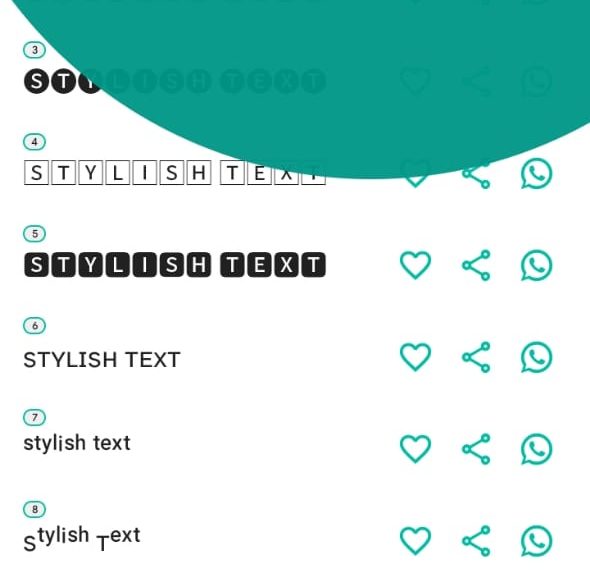
Best Best Font Style App Idea In 2022, To start diving into the world of google fonts you can read this article for a selection of the best ones. The app offers more than 100 font styles, including cursive, gothic, bold, italic, upside down, bubble, etc.
Stylish text by rural geeks. A sans serif typeface with 48 styles, available from adobe fonts for sync and web use. This beautifully elegant and minimal font is completely free for you to use with your personal and commercial projects. Stylish text by rural geeks is one of the best and most popular apps in the play store for fancy fonts.
Cool fonts can be used on any app at any time on the iphone. This app is like a word art generator, letter generator, and font generator to make fancy messages, text symbols, and attractive writing. Get or download the best cool symbols and text ππ ππ₯π€ style of old, english, japanese, chinese, arabic, bookman old, goudy old, vegan, amharic, wedding, certificate, signature font for free with easy copy and paste options. The application converts your normal texts to the stylish texts by ascii characters in various beautifully patterns. Best Free Fonts for Mobile App Designs Best free fonts, Mobile app.
Stylish text by rural geeks. Specifically designed for the web and mobile, it uses upright pressure, open shapes, and a neutral but friendly appearance to make it easy to read. The application converts your normal texts to the stylish texts by ascii characters in various beautifully patterns. Cool fonts can be used on any app at any time on the iphone. Top 10 Best Typing Software for Windows 2020 Techniblogic.
It includes 12 different styles of fonts featuring more than 2700 glyphs. Here are nine of the best font organizer tools: It has two sister font families, alternates and subrayada, which have a similar design style. To start diving into the world of google fonts you can read this article for a selection of the best ones. Art Text for Windows 10 PC Free Download Best Windows 10 Apps.
The lighter the weight, the more aesthetically pleasing this font is in nature. If font style is not specified, βnormalβ is the default option. All fonts for android are free with a gif maker keyboard in this good rated tester app of google play store. In a web browser, font style is a css (custom style sheet) property used in html and asp.net programming, defining the font style for text. Best fonts for web and mobile app design UX & typography Justinmind.
Fontbase (mac/windows/linux) fontbase font application on macos. The clean and minimal look of the font makes it a great choice for luxury brands as well. And works flawlessly for messaging, social media account bios, and create engaging stories. It includes 12 different styles of fonts featuring more than 2700 glyphs. Fonts for Instagram Bio and Comments Free Mac Software.
The main elements are great. Cool fonts can be used on the ipad and ipod, as well as the iphone. It has two sister font families, alternates and subrayada, which have a similar design style. Stylish font app provides you 50 stylish font to change your phone font, app also provides stylish text generator, message or quotes maker and stylish and fancy bio text creator for social media like instagram and facebook, you can use it for different text styles, text decoration, cool text, stylish message, text font styles, fancy text, font art to make your phone stylish.